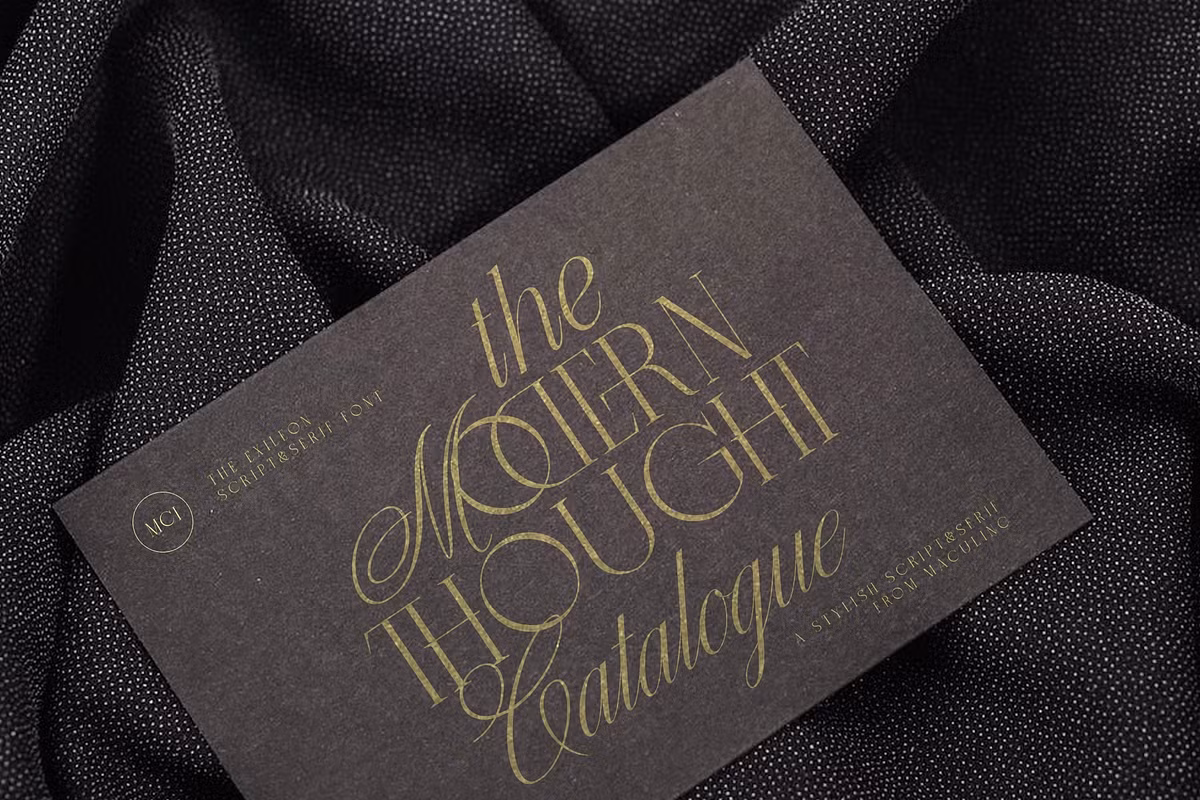
Please note that you must purchase this font duo for commercial use. You can download The Exileon – Script & Serif Font Duo for free, strictly for personal testing purposes only. The Exileon is a stunning font duo that combines a stylish script font with an elegant serif font, designed to bring sophistication and versatility to your projects. The Exileon Font Duo Free Download is perfect for a wide range of designs, including branding, invitations, logos, social media posts, and more.
The script font adds a personal, handwritten touch, while the serif font brings a classic and refined style. Together, these two fonts complement each other perfectly, allowing for dynamic and creative designs. The duo includes uppercase and lowercase letters, numerals, punctuation, and multilingual support, offering flexibility for global use.
Whether you’re crafting a luxury brand, designing custom invitations, or working on a stylish marketing campaign, The Exileon gives your typography an elegant, timeless touch.